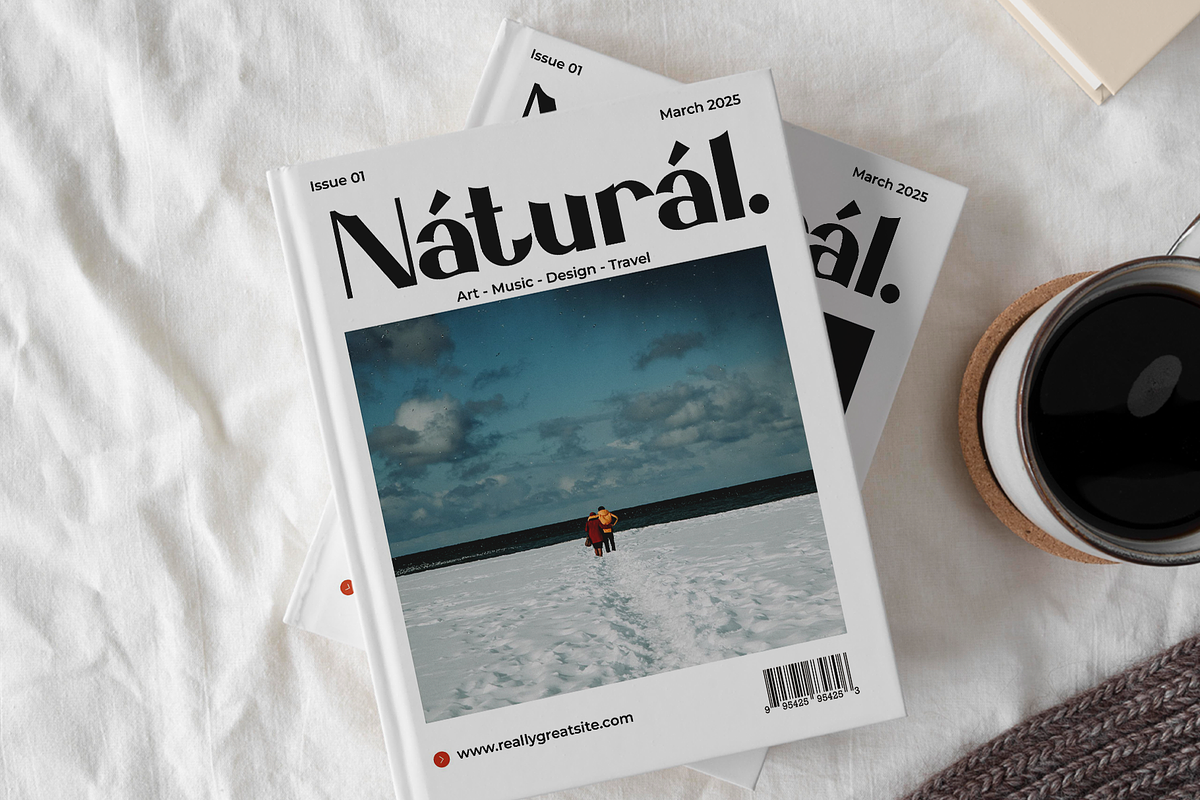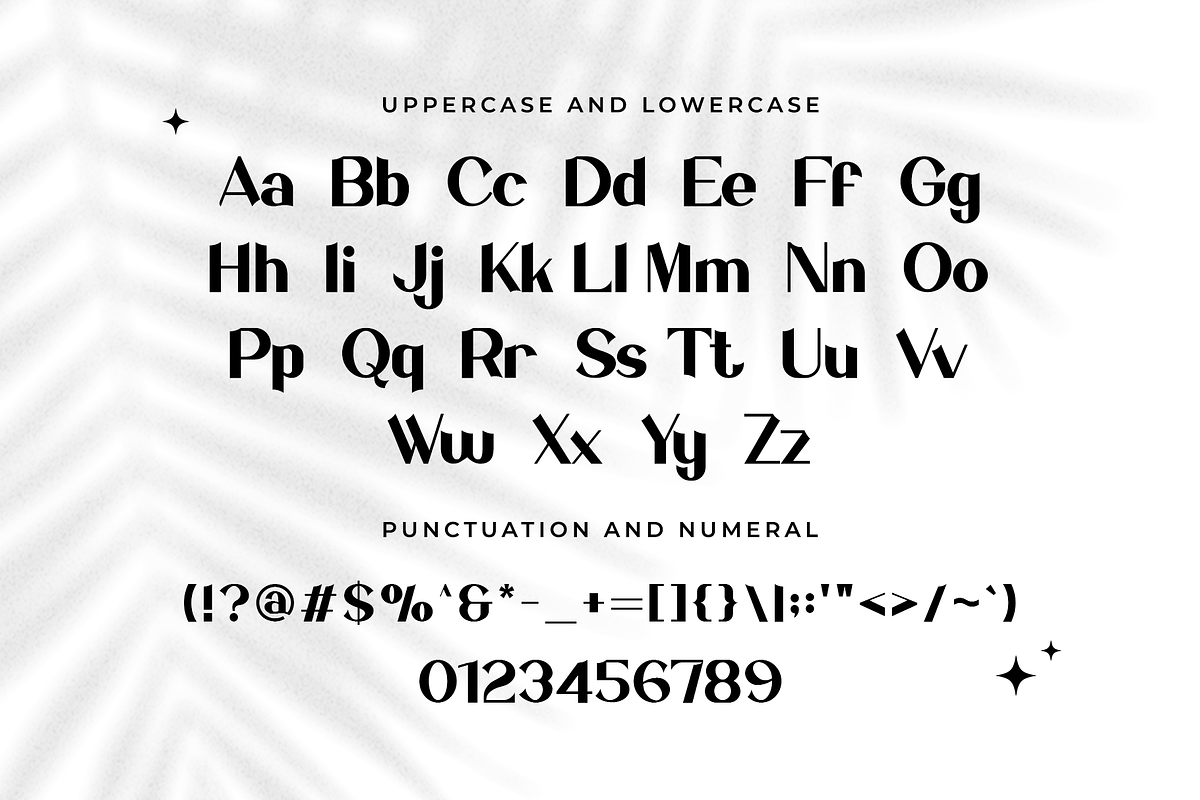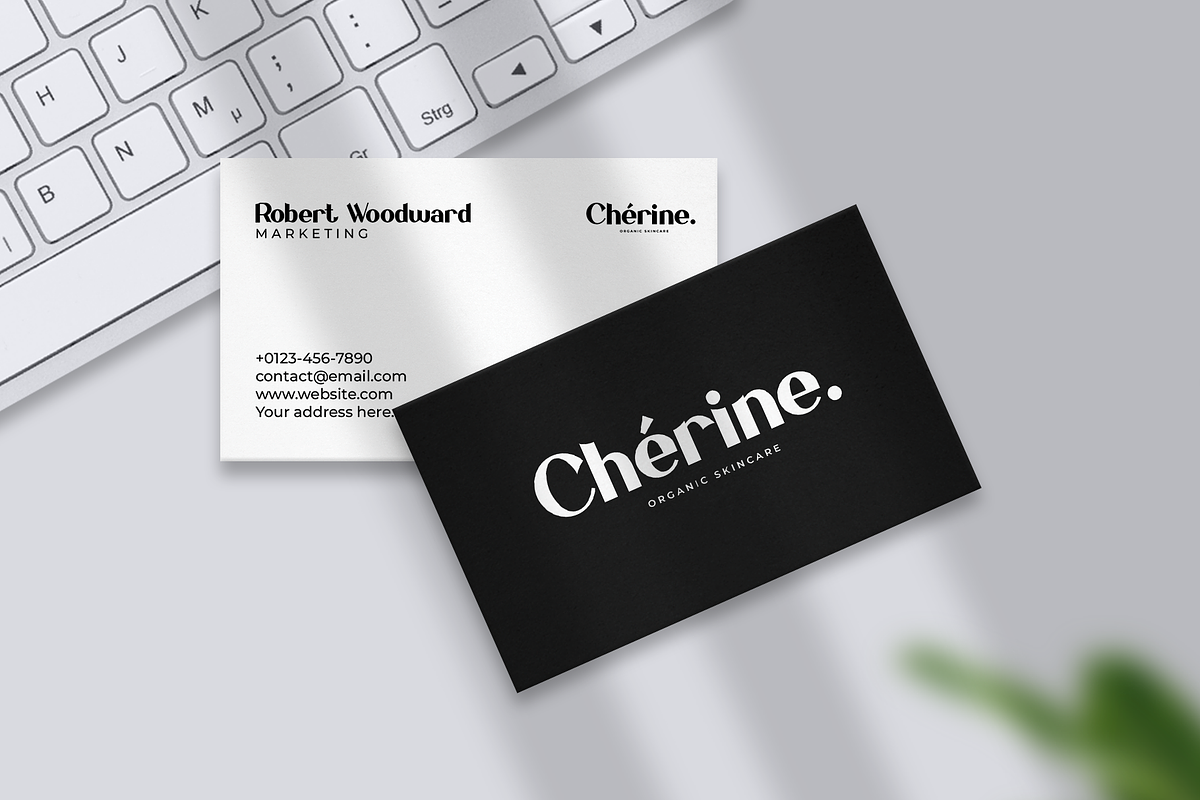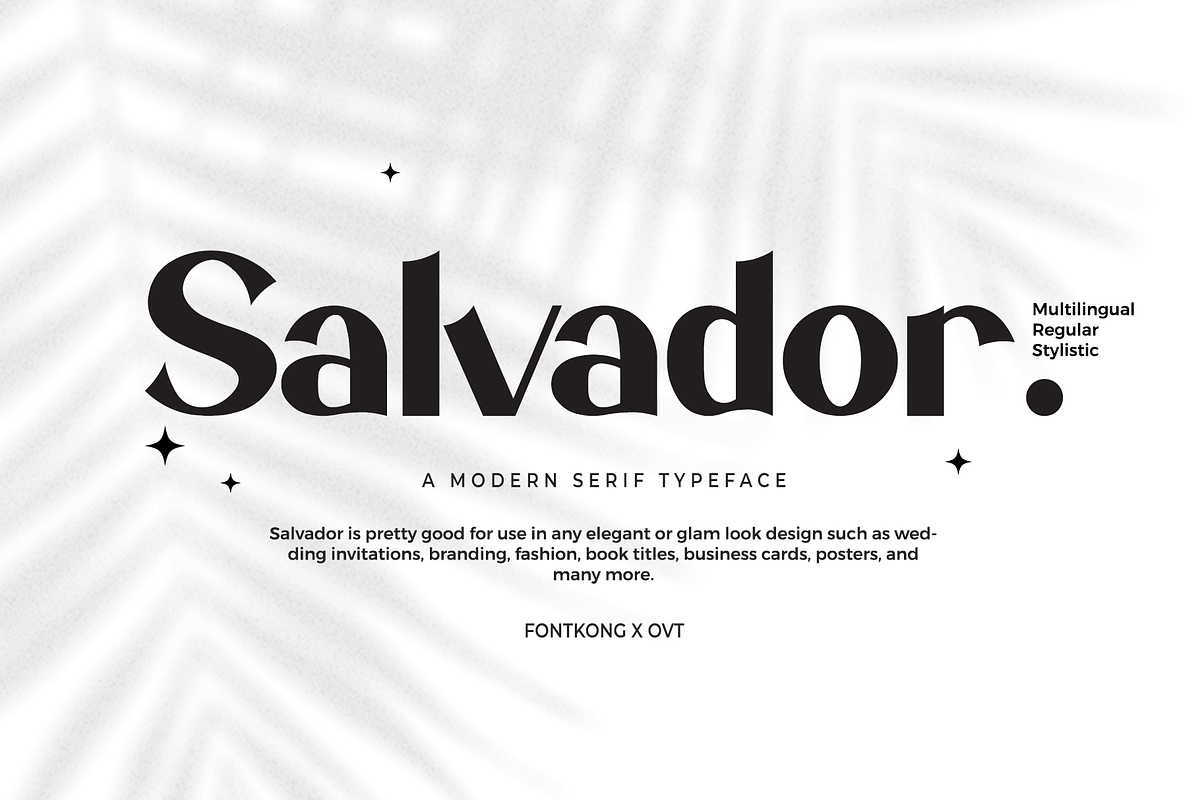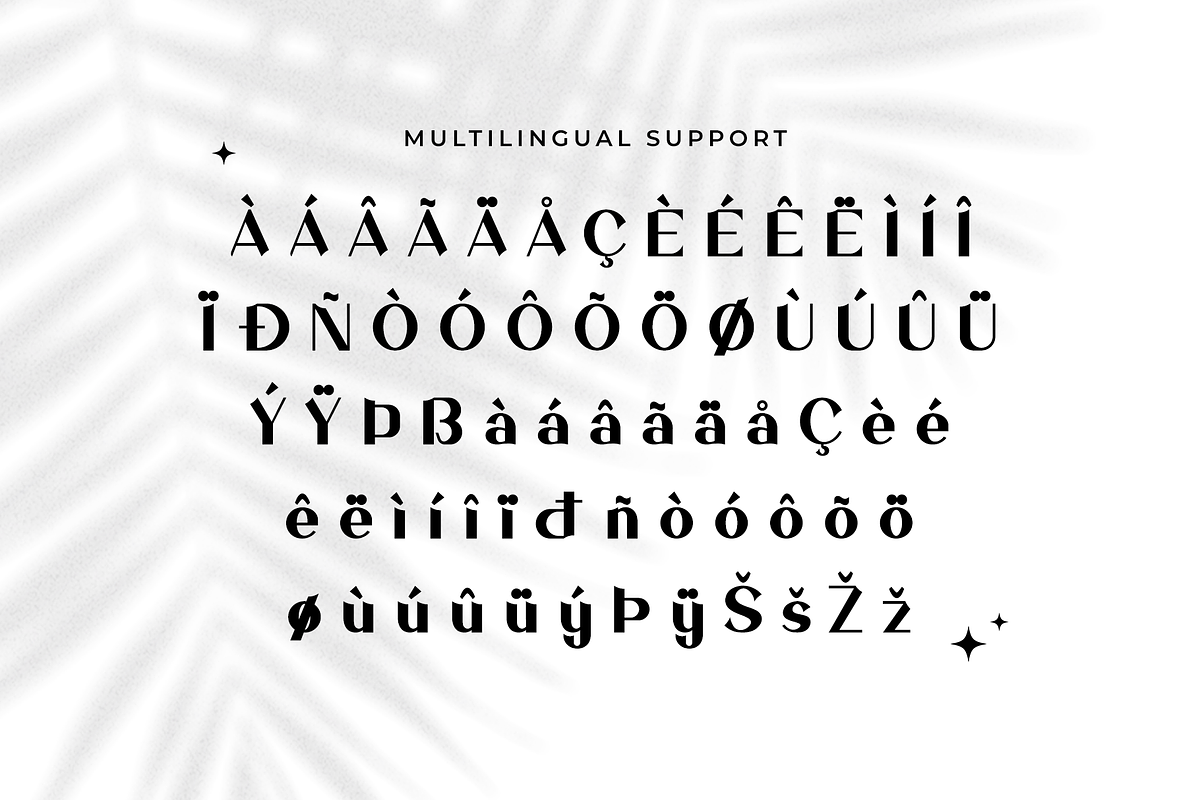
Salvador - Modern Serif Typeface
Introducing "Salvador," a modern serif typeface that redefines elegance with its timeless modernity. Perfect for graphic designers, typographers, and creatives seeking a sophisticated touch for their projects, Salvador offers a sleek and stylish serif style that elevates any design.
Ideal for branding, editorial layouts, logos, packaging, and web design, Salvador’s refined serifs and balanced proportions provide a professional and contemporary aesthetic. Each character is meticulously crafted to ensure readability and visual appeal, making your designs both elegant and impactful.
The "Salvador" font includes a complete set of uppercase and lowercase letters, numbers, punctuation marks, and special characters. This comprehensive set ensures seamless integration into a variety of design projects, from chic branding to elegant editorial content.
Elevate your designs with Salvador, the modern serif typeface that combines elegance and modernity in every project.